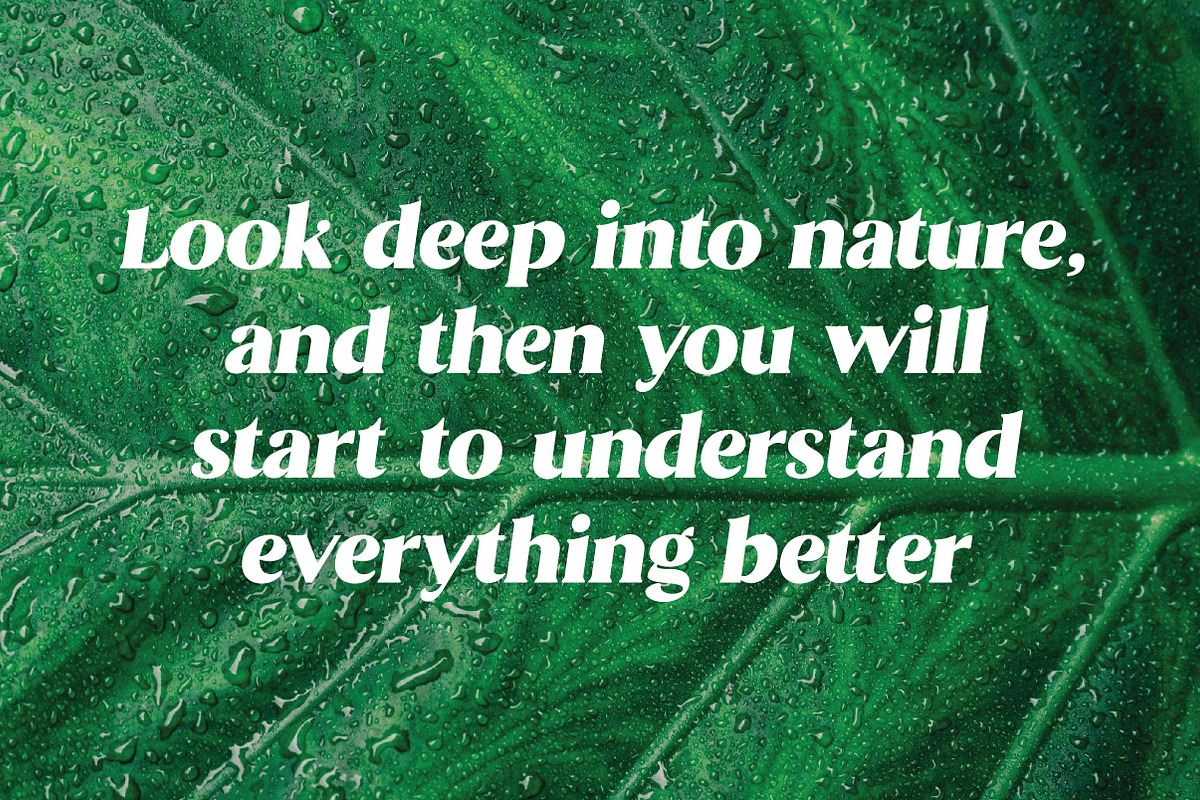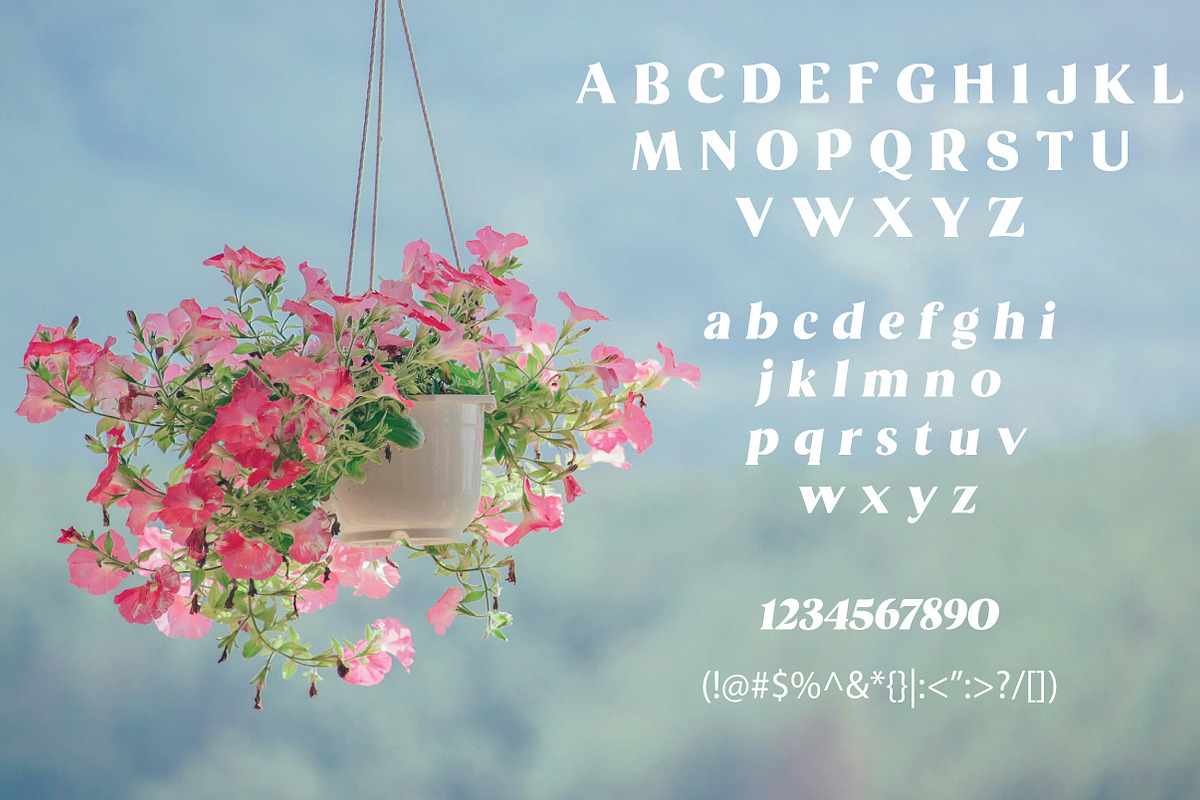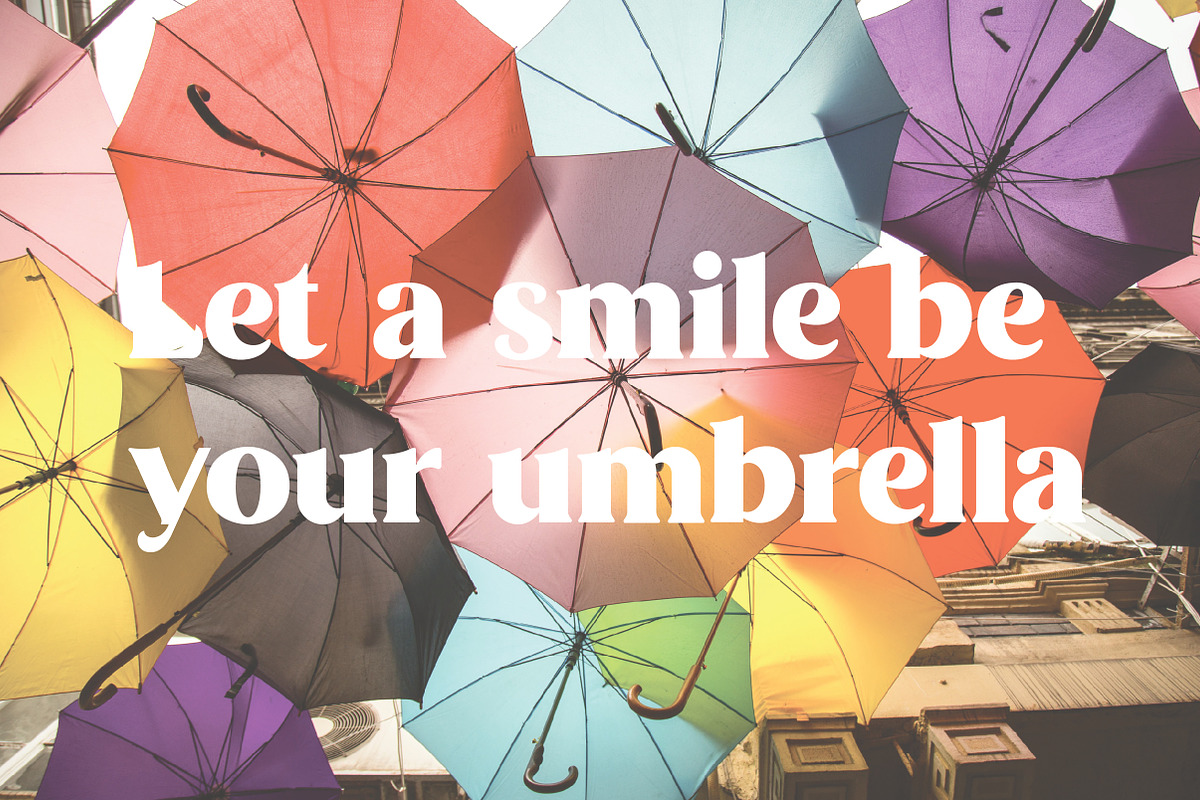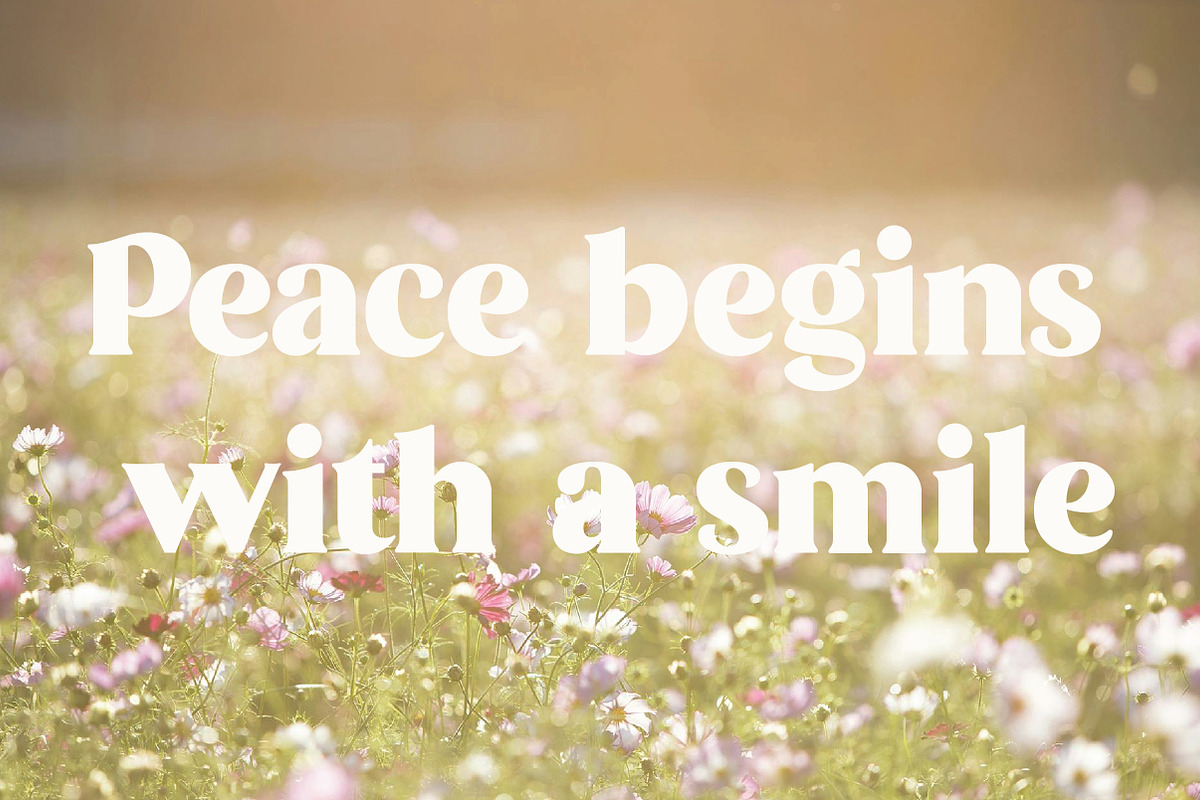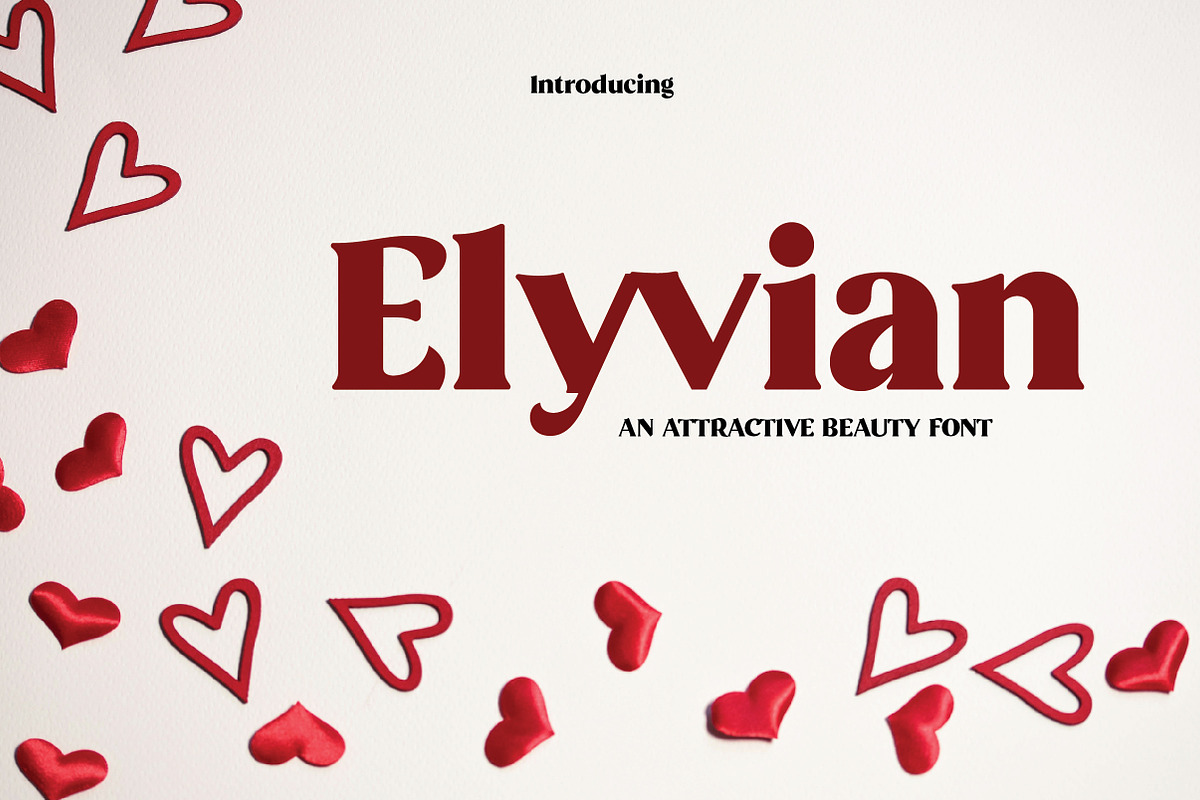
Elyvian | Modern Elegant Serif Typef
Elyvian is a modern and elegant serif typeface designed to combine clarity, sophistication, and timeless style. The Regular style features smooth curves, sharp serifs, and balanced proportions—making it an ideal choice for branding, editorial layouts, logos, luxury packaging, invitations, and premium digital content. Elyvian’s refined structure and graceful presence ensure excellent legibility and visual harmony in both display and text settings. Whether you're designing for fashion, lifestyle, or high-end products, Elyvian adds confidence and class to any design.
Elyvian is the perfect serif font for creatives seeking modern elegance, typographic versatility, and a classic-yet-fresh design tone.